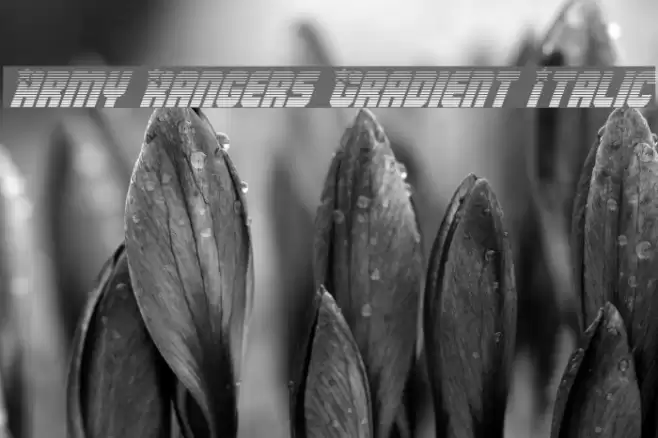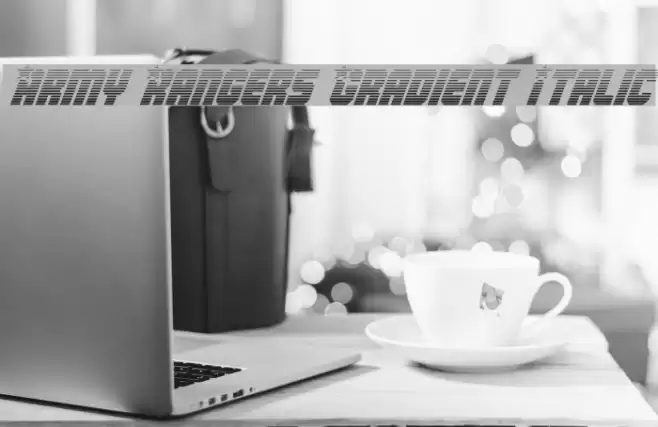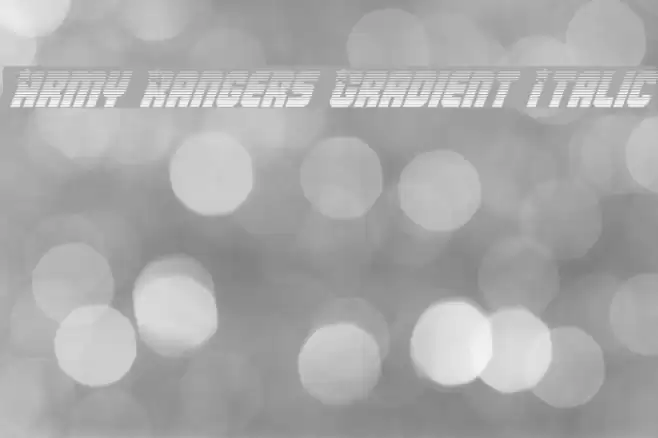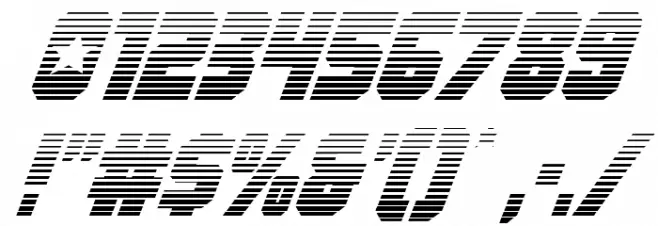
Army Rangers Gradient Italic Font
Army Rangers Gradient Italic Description
This font features a bold, italicized style with a distinct gradient effect created by horizontal lines that vary in thickness. The uppercase and lowercase letters, as well as numbers and special characters, are designed with a futuristic and dynamic appearance. The slanted orientation adds a sense of motion and speed, making it ideal for projects that require a modern and energetic look. The characters are evenly spaced, maintaining a consistent rhythm across the text. The gradient effect enhances the visual interest, making it suitable for eye-catching designs.
A bold, italicized font with a gradient effect and dynamic, futuristic style from Uncategorized fonts.
- Proposed Projects: Ideal for sports team branding, action movie posters, video game titles, and dynamic advertising campaigns.